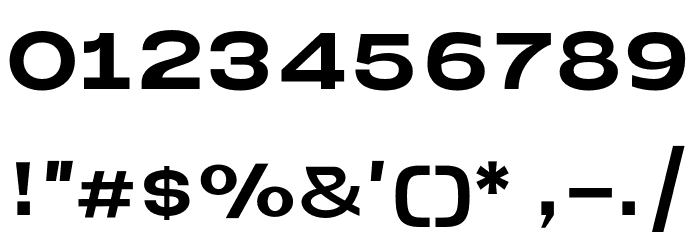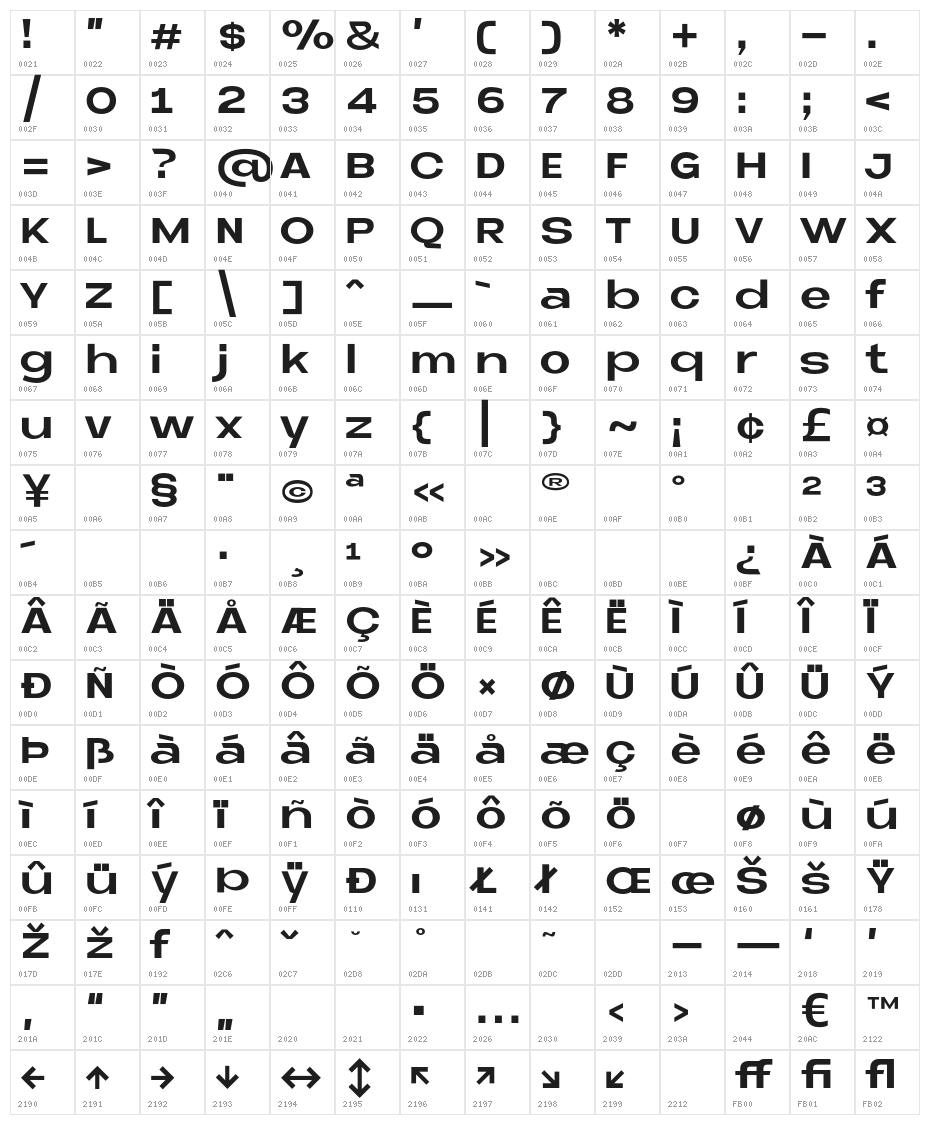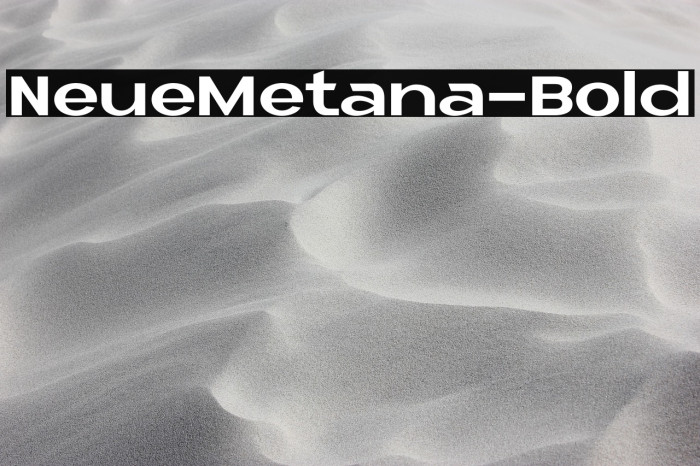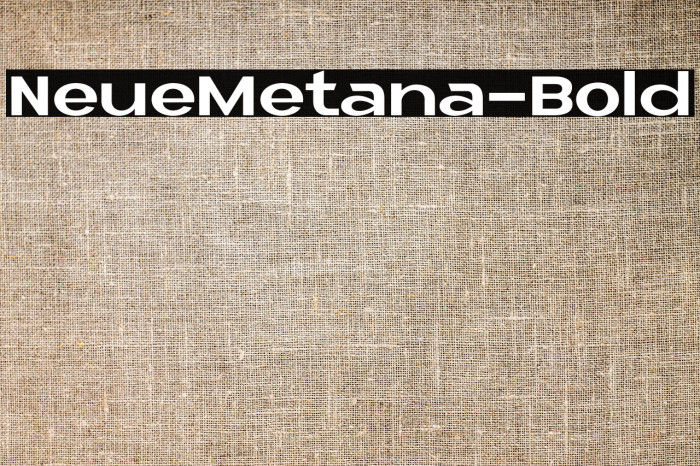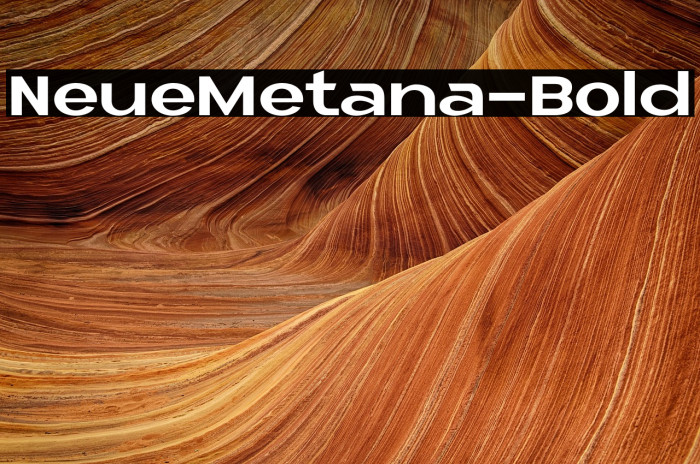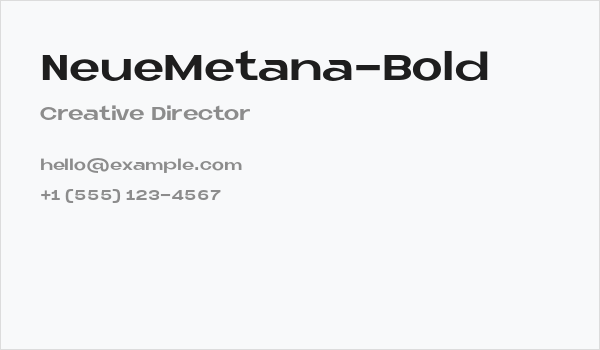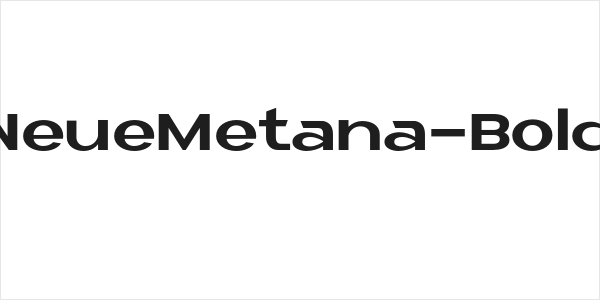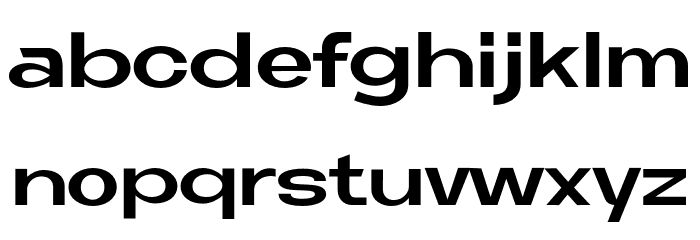
NeueMetana-Bold Font
NeueMetana-Bold Description
This font exhibits a bold and modern sans-serif style, characterized by clean lines and a strong geometric structure. The uppercase letters are uniform in height, providing a sense of stability and balance. The lowercase letters maintain a consistent x-height, enhancing readability. The numerals are proportional, aligning well with the overall design. Special characters are distinct and well-integrated, ensuring versatility in various applications. The font's bold weight and clear legibility make it suitable for impactful headlines and branding.
| Proposed Projects | Ideal for branding, advertising, headlines, and digital media where a strong, modern presence is desired. |